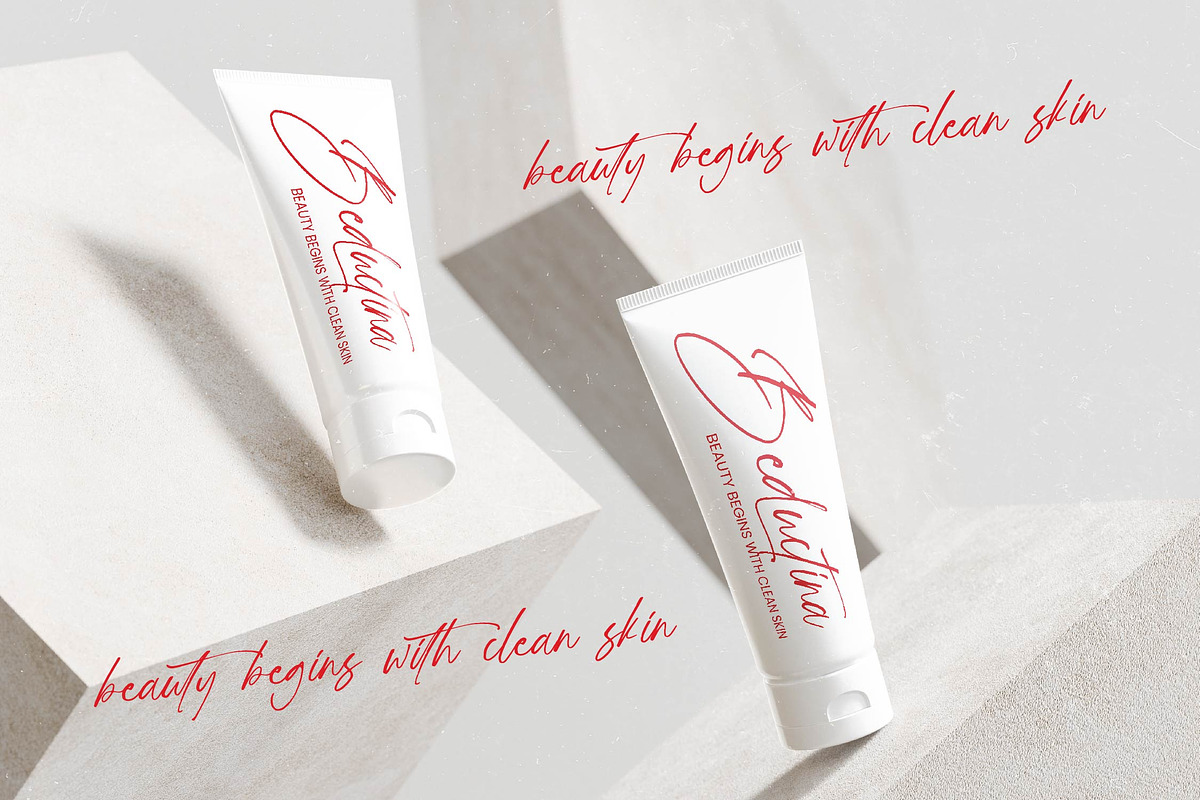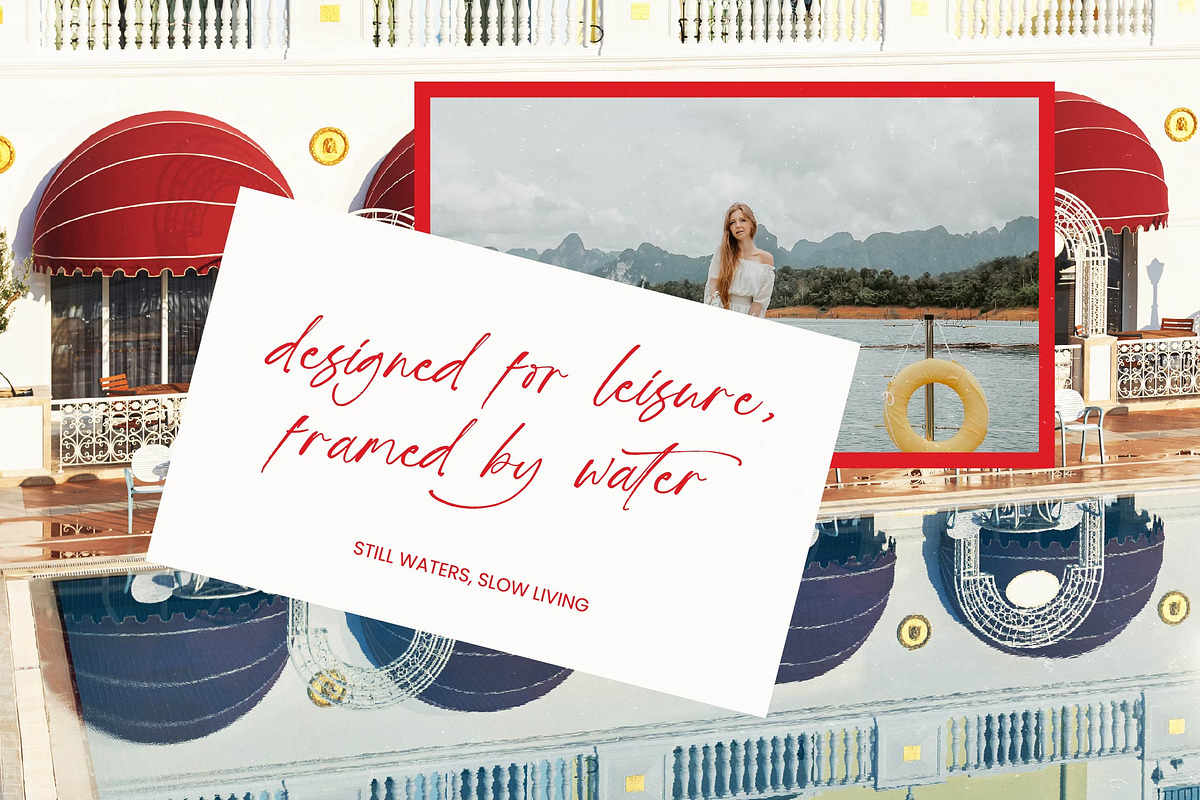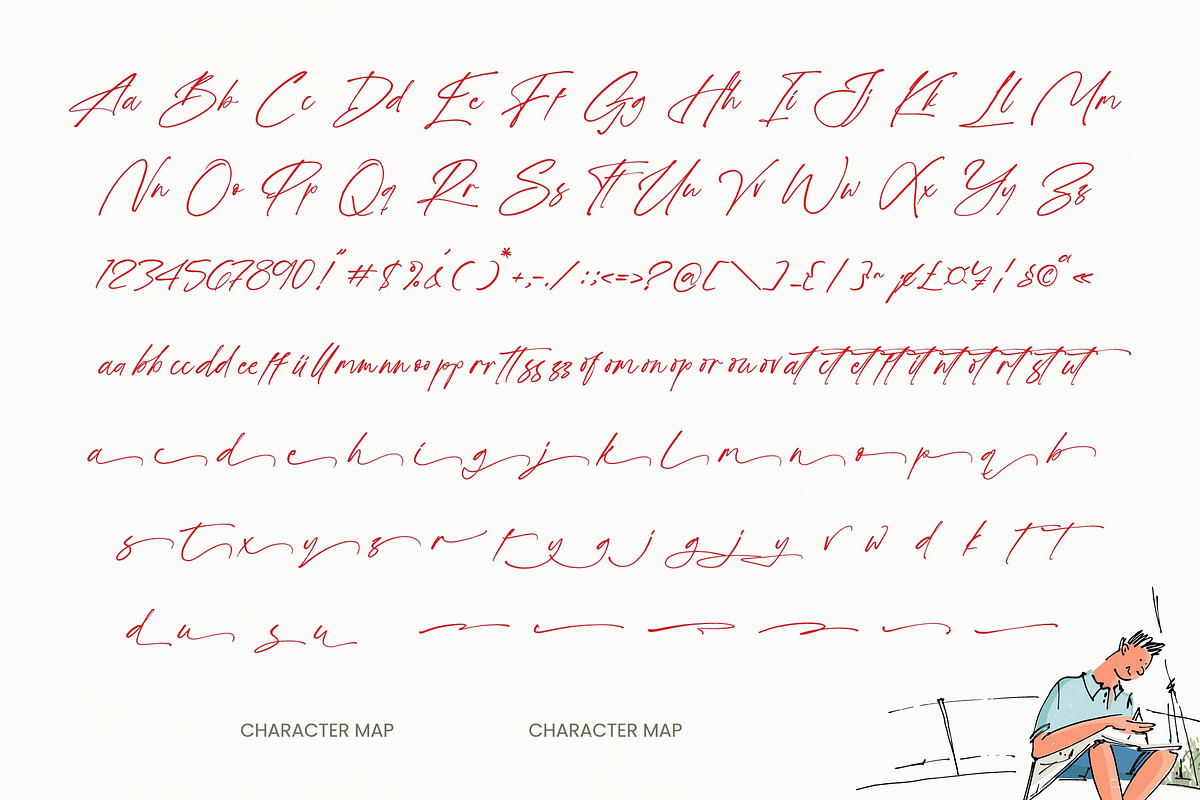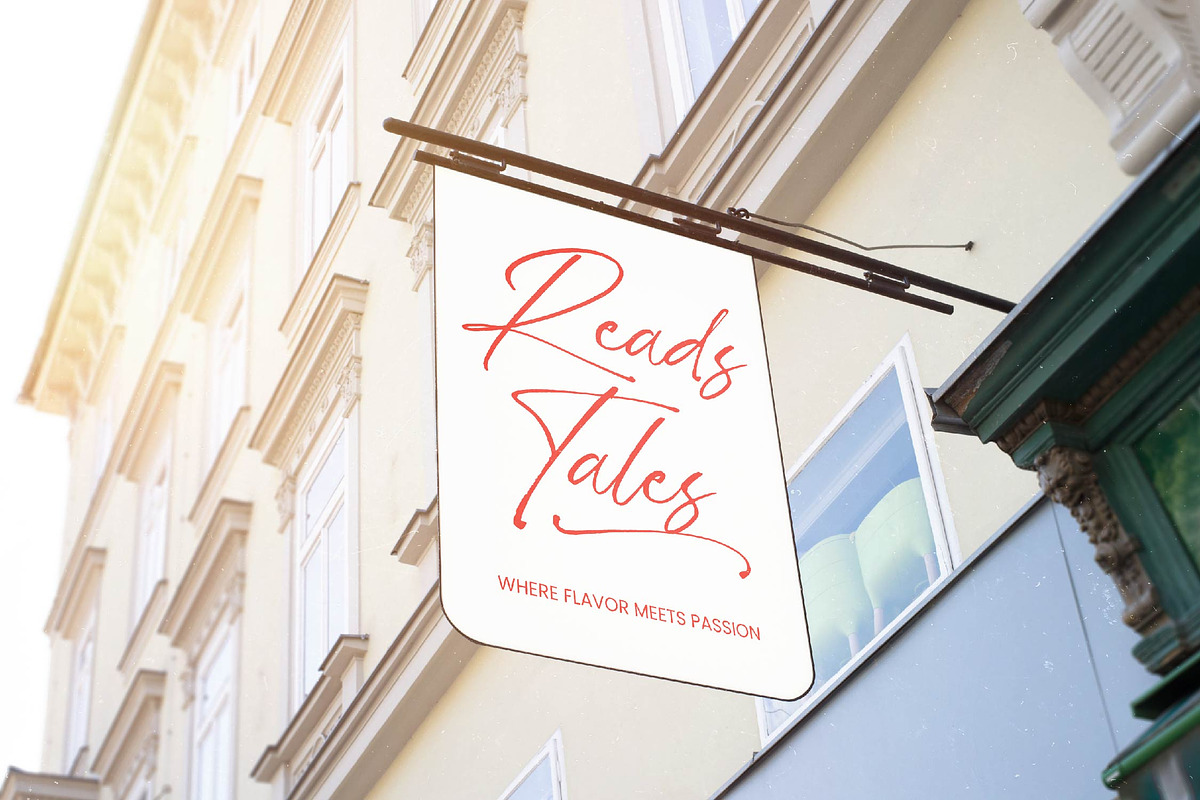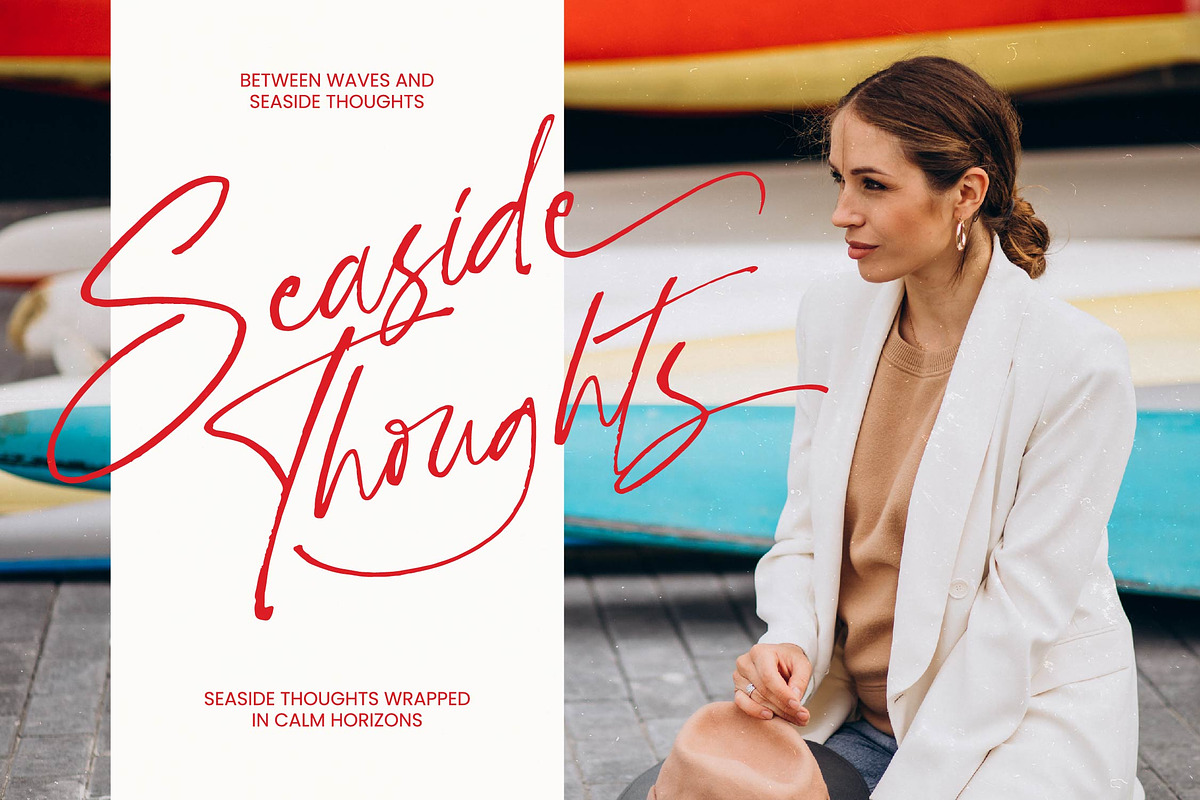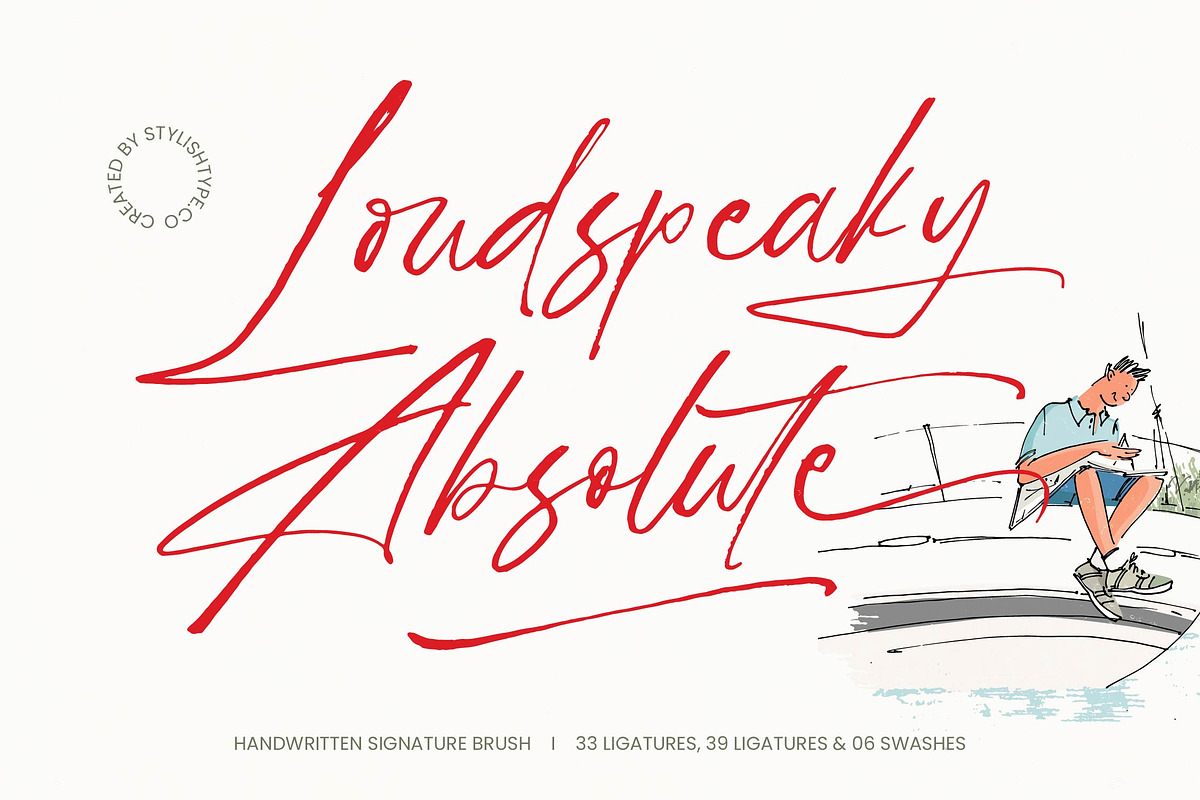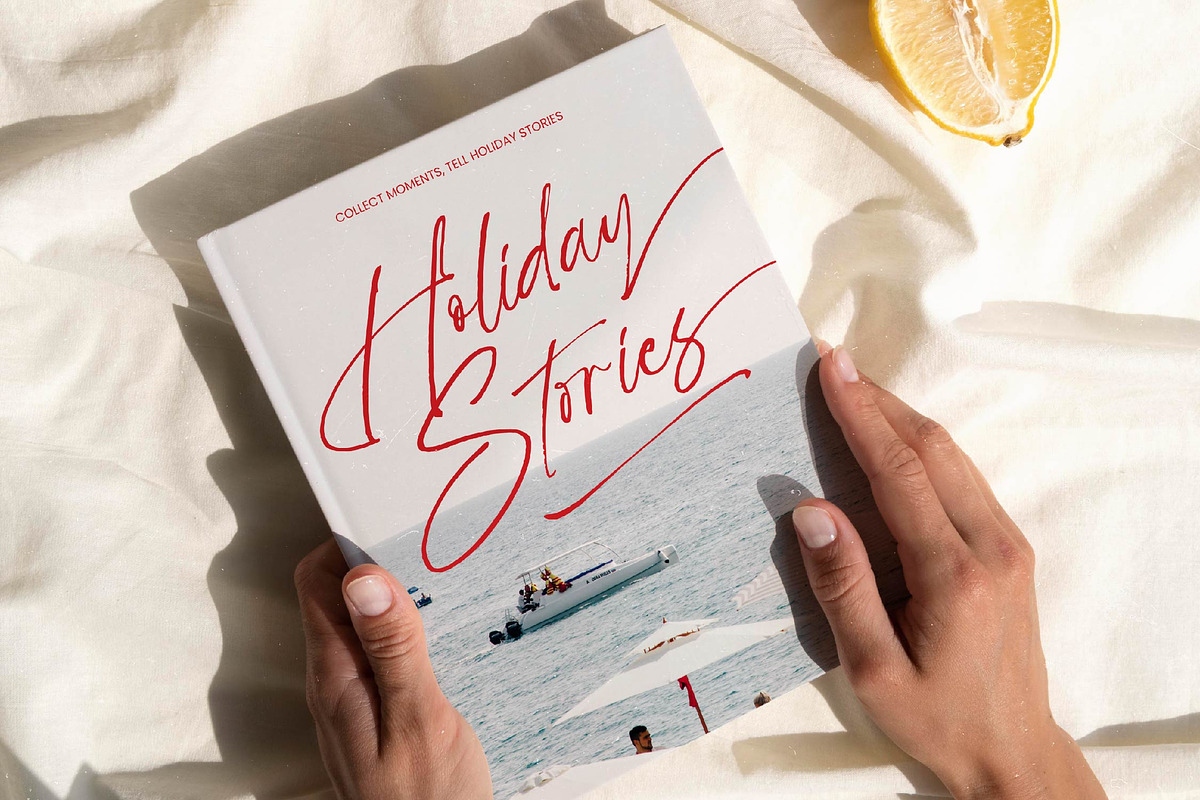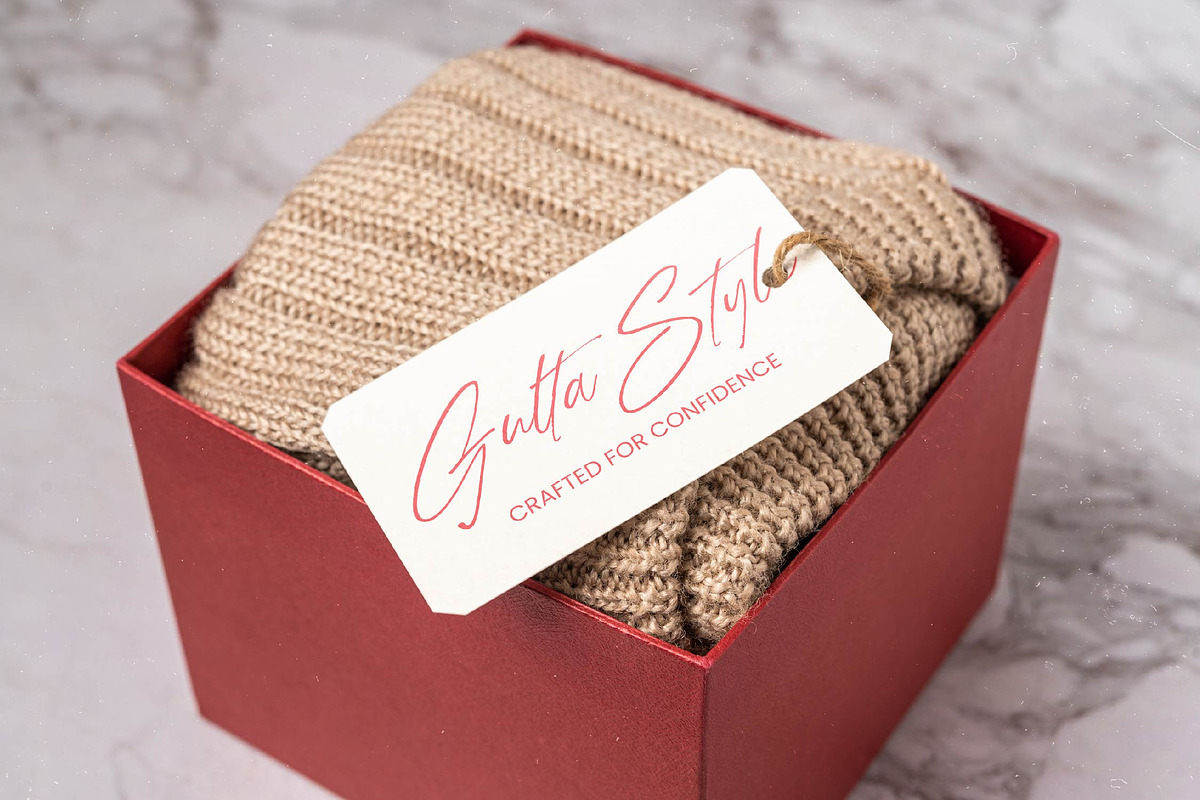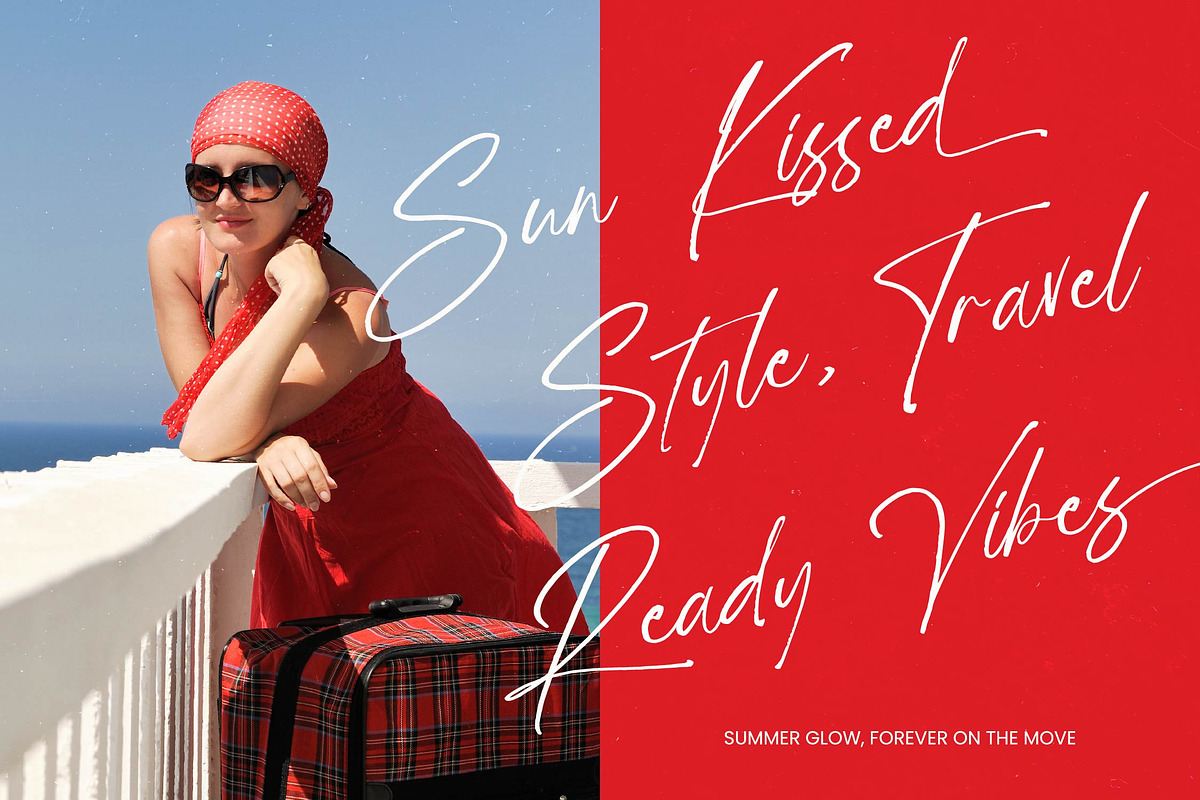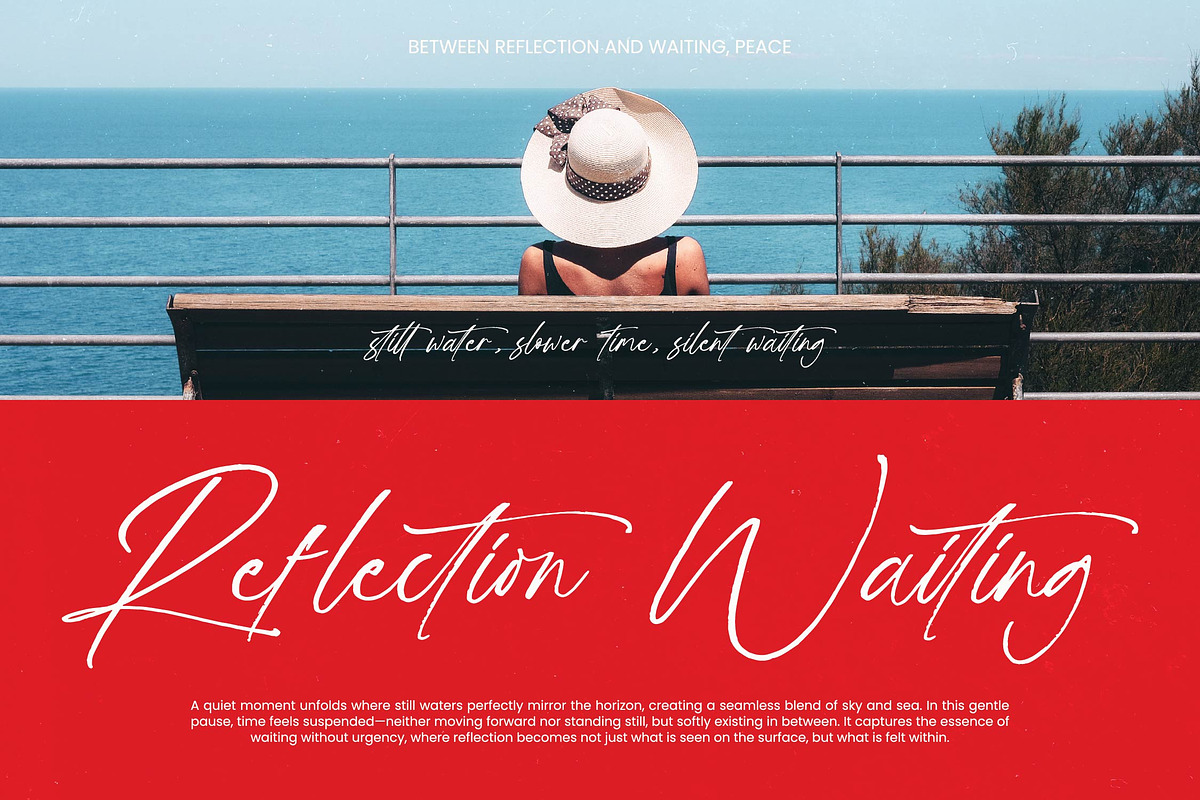
Loudspeaky Absolute Signature Brush
Loudspeaky Absolute - Handwritten Signature Brush , Elevate your visual identity with raw, expressive energy. Loudspeaky Absolute - Handwritten Signature Brush is a masterpiece of modern calligraphy, blending fluid brush strokes with a dynamic signature aesthetic. This font captures a sense of unbridled creativity and authentic human touch, making it the perfect choice for designers seeking a high-impact typographic statement. Its dramatic swashes and natural textures ensure every word feels bespoke and energetic.
Master the art of premium presentation across diverse creative mediums. This typeface is perfect for luxury branding, fashion editorials, and bespoke packaging that requires a sophisticated yet edgy vibe. Loudspeaky Absolute - Handwritten Signature Brush excels in social media graphics, professional logos, and lifestyle advertising, where its distinctive personality stands out. It provides the refined elegance needed for high-end events while maintaining the urban grit suitable for streetwear.
Expand your creative reach to a global audience with ease. With its extensive multilingual support, Loudspeaky Absolute - Handwritten Signature Brush adapts seamlessly across global markets, making it incredibly versatile for international projects. This broad character set ensures that your message remains consistent and impactful, regardless of the language or region. By offering seamless global compatibility, it empowers designers to maintain a cohesive brand identity on a worldwide scale.
Unlock unparalleled design flexibility with professional-grade features. Featuring an impressive array of custom ligatures and artistic swashes, Loudspeaky Absolute - Handwritten Signature Brush provides the tools to create truly unique typography. This versatile script is more than just a font; it is a comprehensive design asset that breathes life into static layouts. Invest in Loudspeaky Absolute - Handwritten Signature Brush today to give your portfolio the commercial edge and artistic flair it deserves.